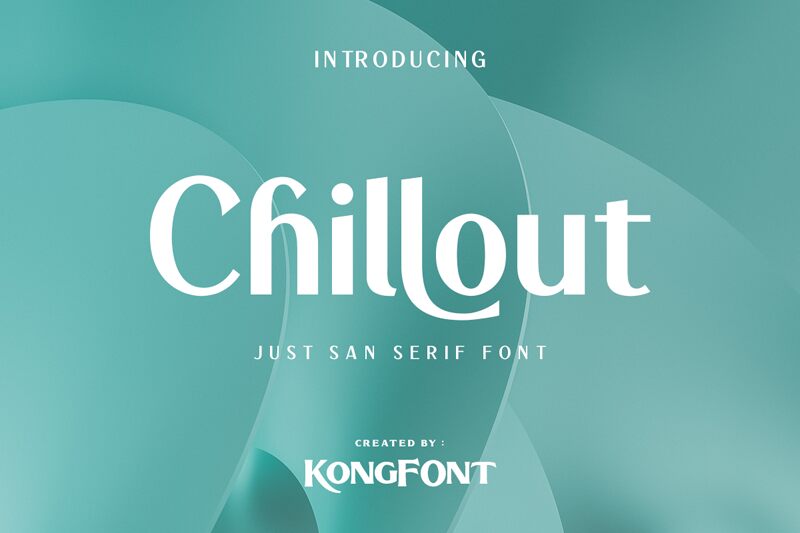
Chillout
Chillout, the brainchild of renowned font designer Kong Font, is a sleek and modern sans serif font that exudes an air of sophistication. With its clean lines and balanced proportions, Chillout is the perfect choice for a wide range of design projects.
Its versatility makes it suitable for branding materials, such as logos and business cards, as well as editorial content like magazines and brochures. Whether you're creating a website or designing packaging for a trendy product, Chillout's bold and regular font styles will effortlessly capture attention and convey your message with style.